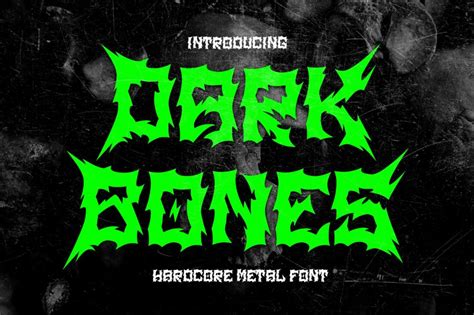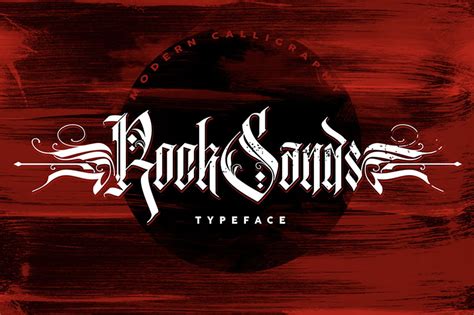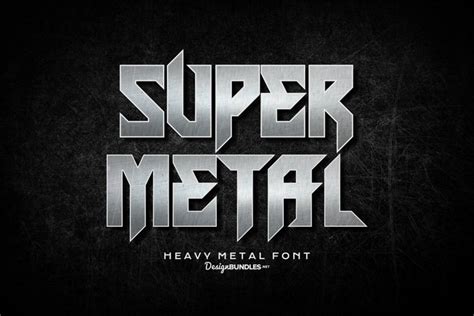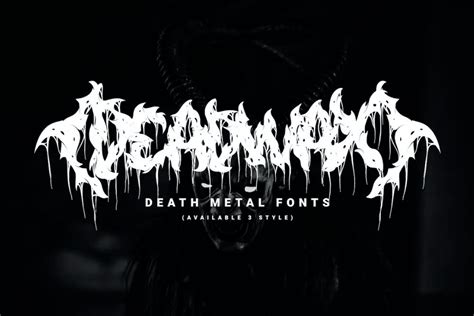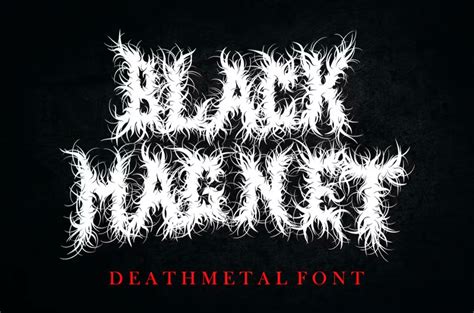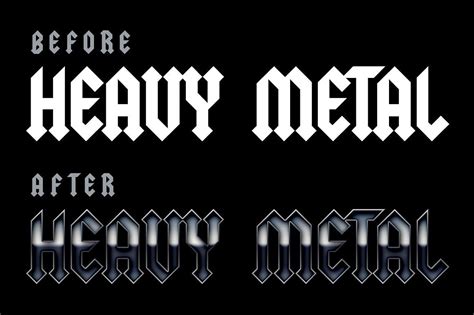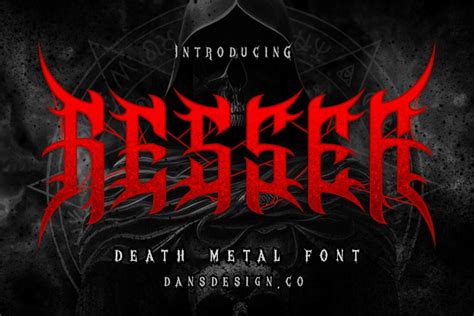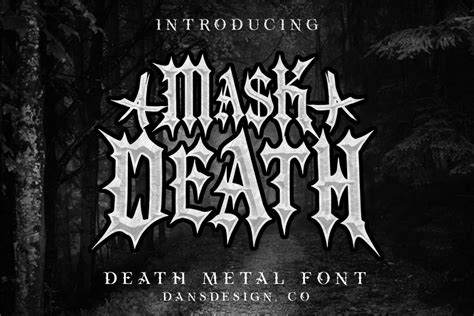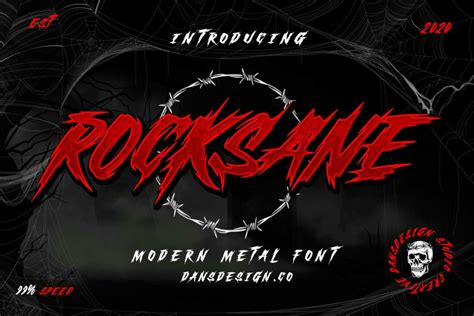
HEAVY METAL FONTS
The world of heavy metal fonts is a fascinating realm where typography meets music and culture. These fonts are a unique blend of artistic expression and technical design, often associated with the heavy metal genre but also used in various other contexts. This introduction will explore the characteristics, history, and impact of these distinctive fonts, shedding light on their role in the visual identity of heavy metal bands and their broader influence on design and popular culture.
One of the key aspects of heavy metal fonts is their bold and aggressive aesthetic. These fonts are designed to convey a sense of power, intensity, and sometimes even rebellion. The style often features sharp edges, sharp serifs, and a general lack of curves, creating a visually striking and memorable look. This distinctive appearance has become synonymous with the heavy metal genre, helping to define its visual identity and set it apart from other musical styles.
The history of heavy metal fonts can be traced back to the late 1960s and early 1970s when the heavy metal genre began to emerge. During this time, artists and designers started experimenting with bold and unconventional typefaces to reflect the raw and energetic nature of the music. Over time, these fonts evolved and became more refined, incorporating elements of graffiti, punk, and other subcultural aesthetics. Today, they are widely used in album covers, merchandise, and promotional materials, becoming an integral part of the heavy metal community's visual language.